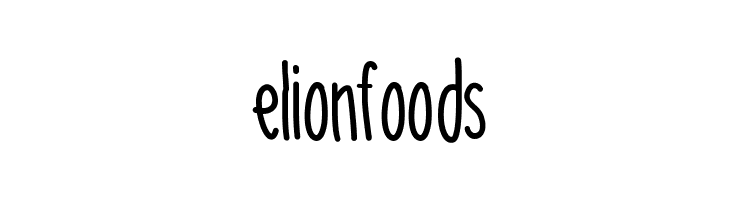
• 6PM
( Tami Vu - thepinksushi.com )
A playful, hand-drawn font with tall, narrow characters and a whimsical style.
• AEZ buzz buzz
A bold, whimsical font with bee illustrations atop each character.
• AEZ classical toys
A dingbat font with classic toy illustrations.
• AEZ crimson and clover
A decorative floral and leaf dingbat set with varied botanical silhouettes.
• AEZ dazzle me